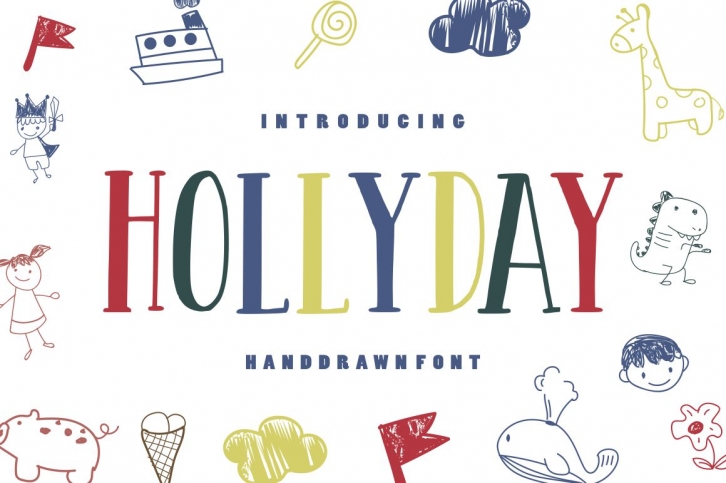
Hollyday is a great font that was designed by Good Java Studio. Imagine the amount of combinations you can create using this font! The archive is 19.61 MB and it was released on January 13, 2020. Hollyday looks beautiful on wedding invitations, greeting cards, logos, posters, labels, t-shirt designs, logos, business cards and is perfect for use in ink or watercolor works, fashion, magazines, packaging and food menus, children's books and more!